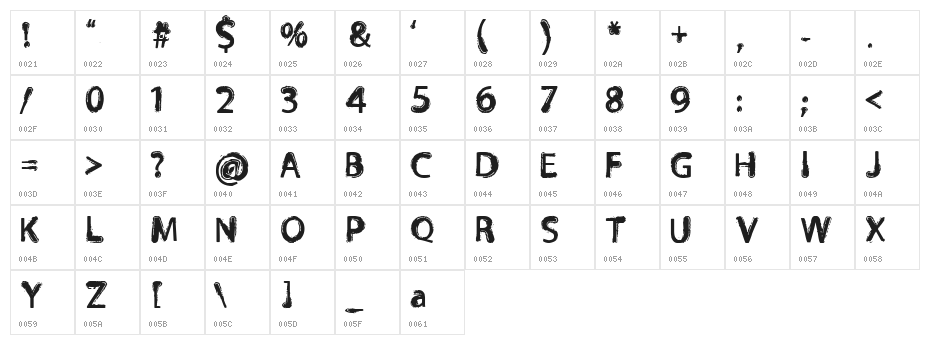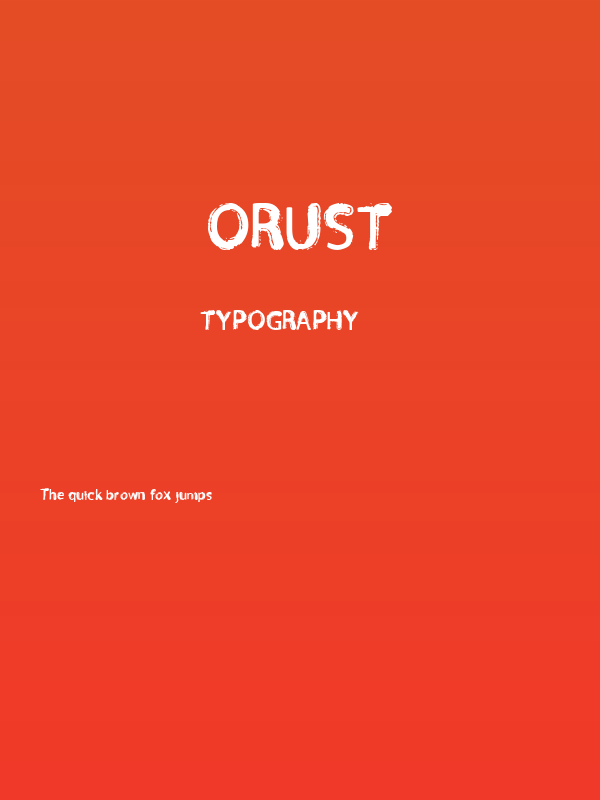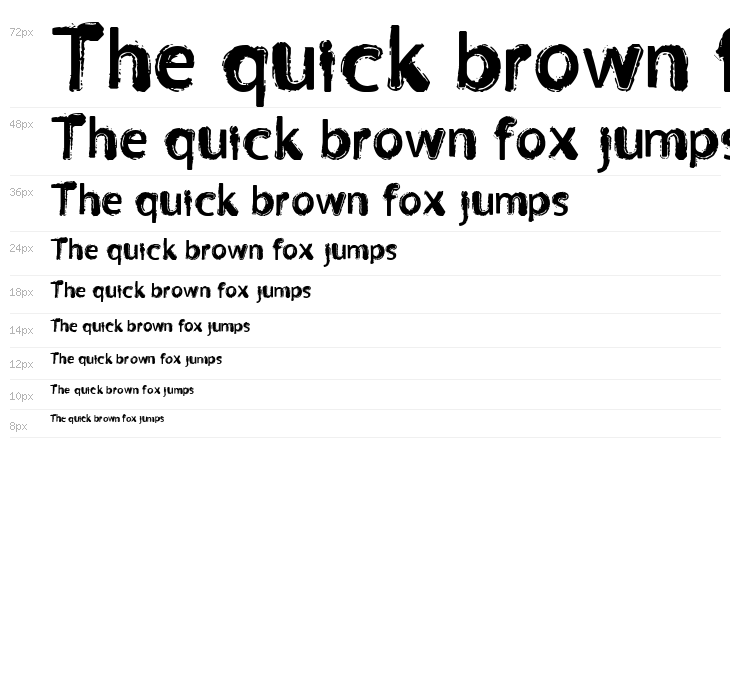
Orust Font
✎ Messy
| Progetti proposti | Ideal for posters, album covers, branding for edgy or artistic products, and any design requiring a bold, vintage aesthetic. |